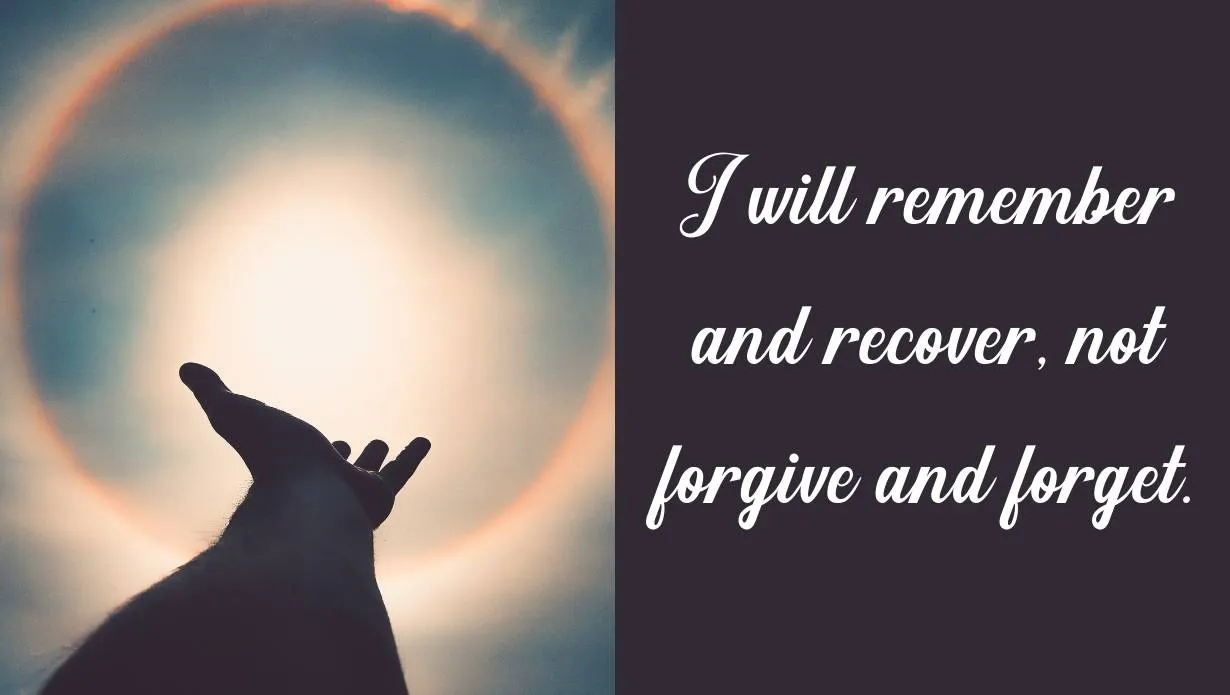
Let, we are present the most attractive and beautiful font that has clear surfaces and appearance named Sunshine Font.
This font is published under the banner of the Lettersiro Studio foundry. The release year of this font is 2015. This typeface is designed by famous graphic designer Shaped Fonts.
This font family has included more than 540 glyphs with ligatures and contextual alternates. It is also used for the copy-paste functions. This font is paired with the Wreath Font.